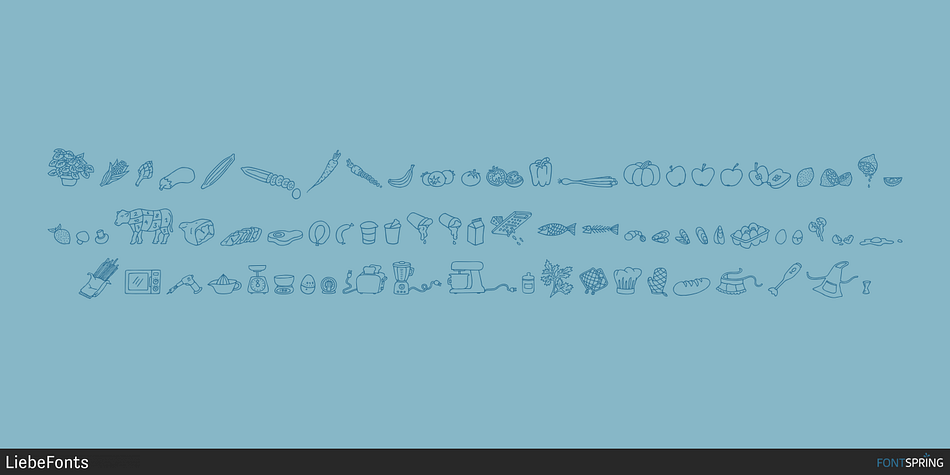
LiebeCook Regular
Designed by Ulrike Rausch, LiebeCook is a dingbat font published by LiebeFonts.
LiebeCook is a carefully crafted collection of fruit and vegetables, forks and knives, pots and home appliances, in countless variations and sizes for creative flexibility.
Create a neatly illustrated cookbook of your favorite recipes, send dinner invitations to your friends, or decorate your restaurant’s menu—with LiebeCook you will surely give your designs a personal touch.
More than 170 drawings are included in this single font and can be used in any text or graphics application.
Combine LiebeCook with LiebeMenu and LiebeMenuLettering to give your food-related projects a handmade but professional look.